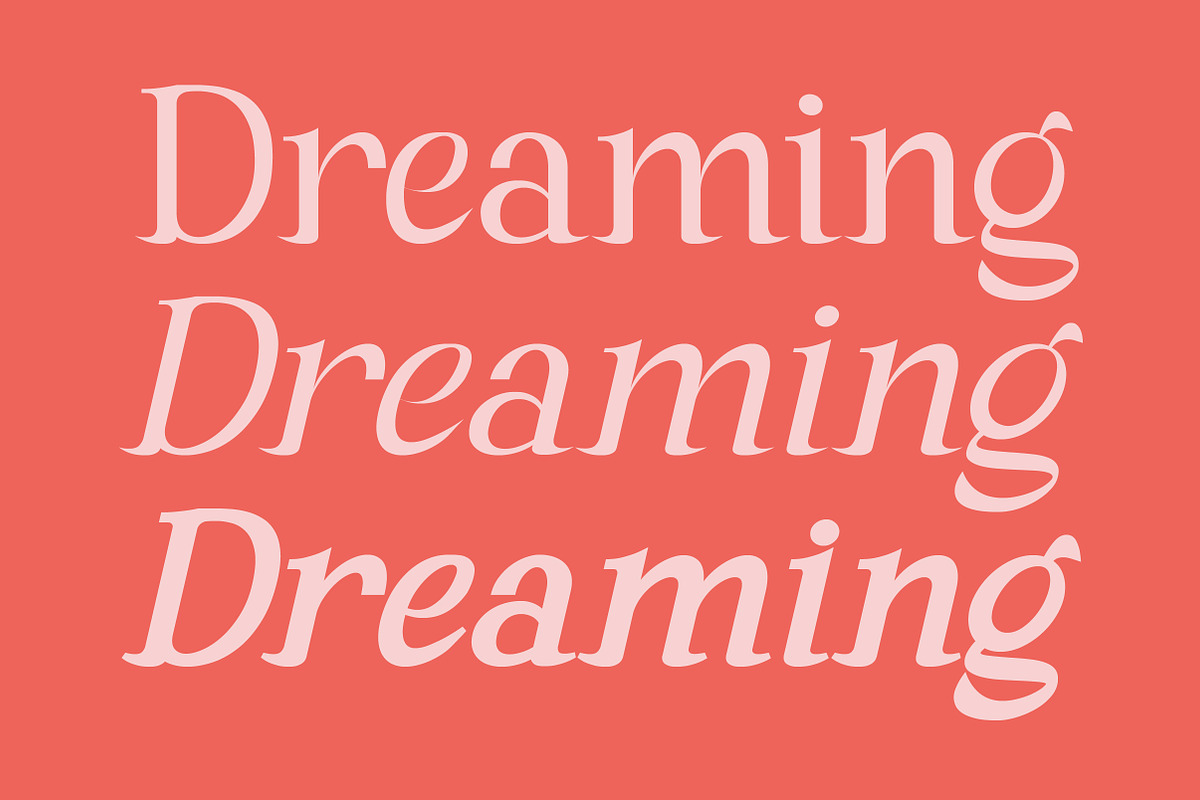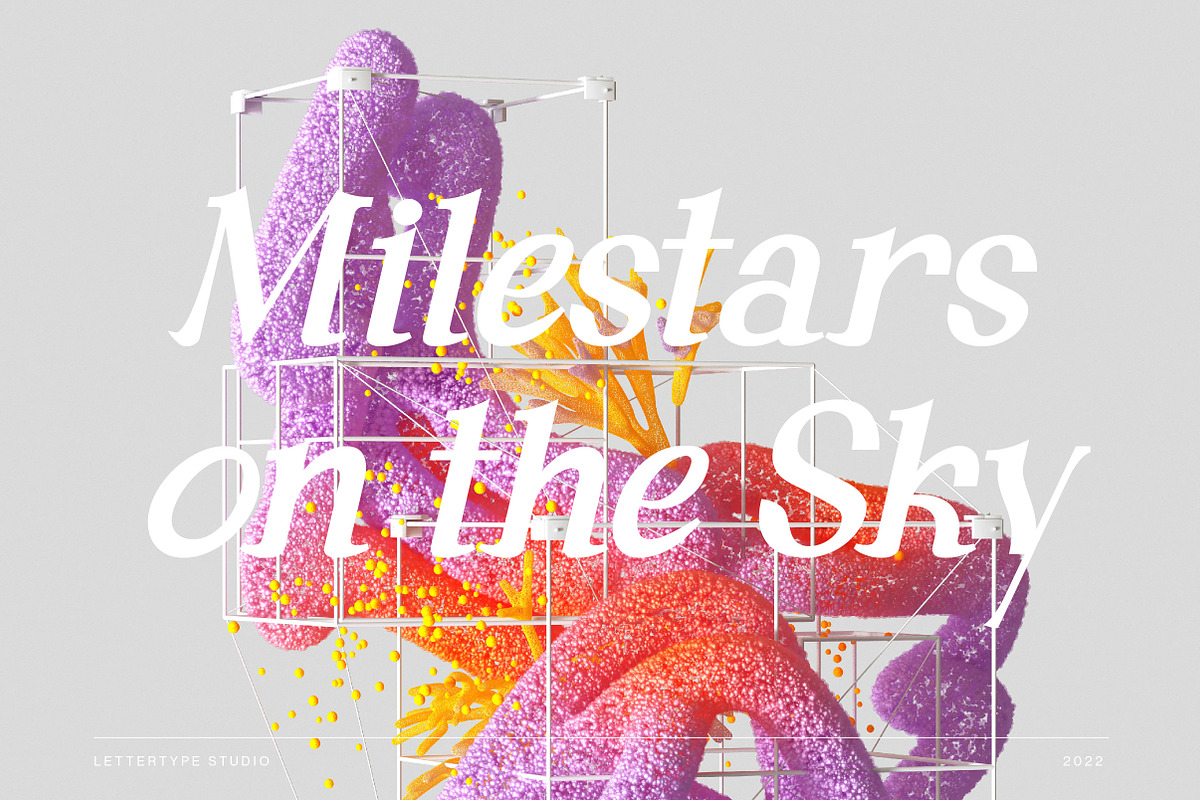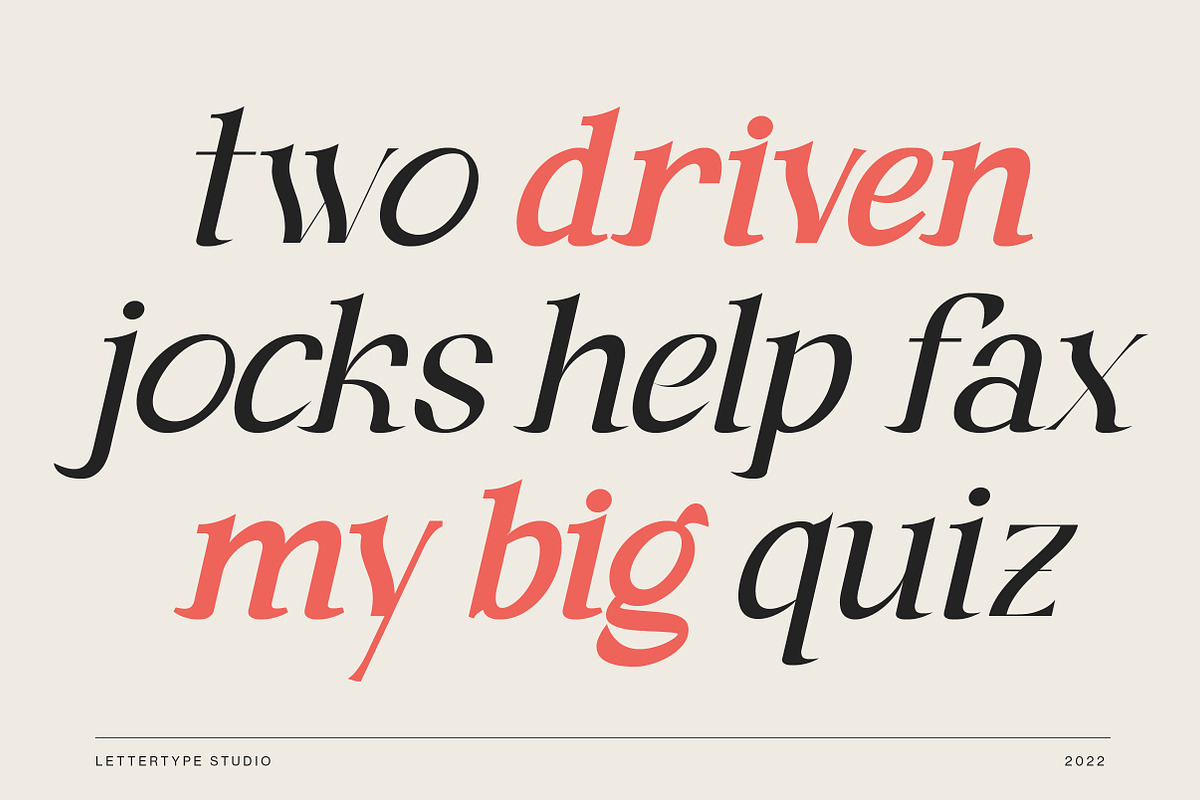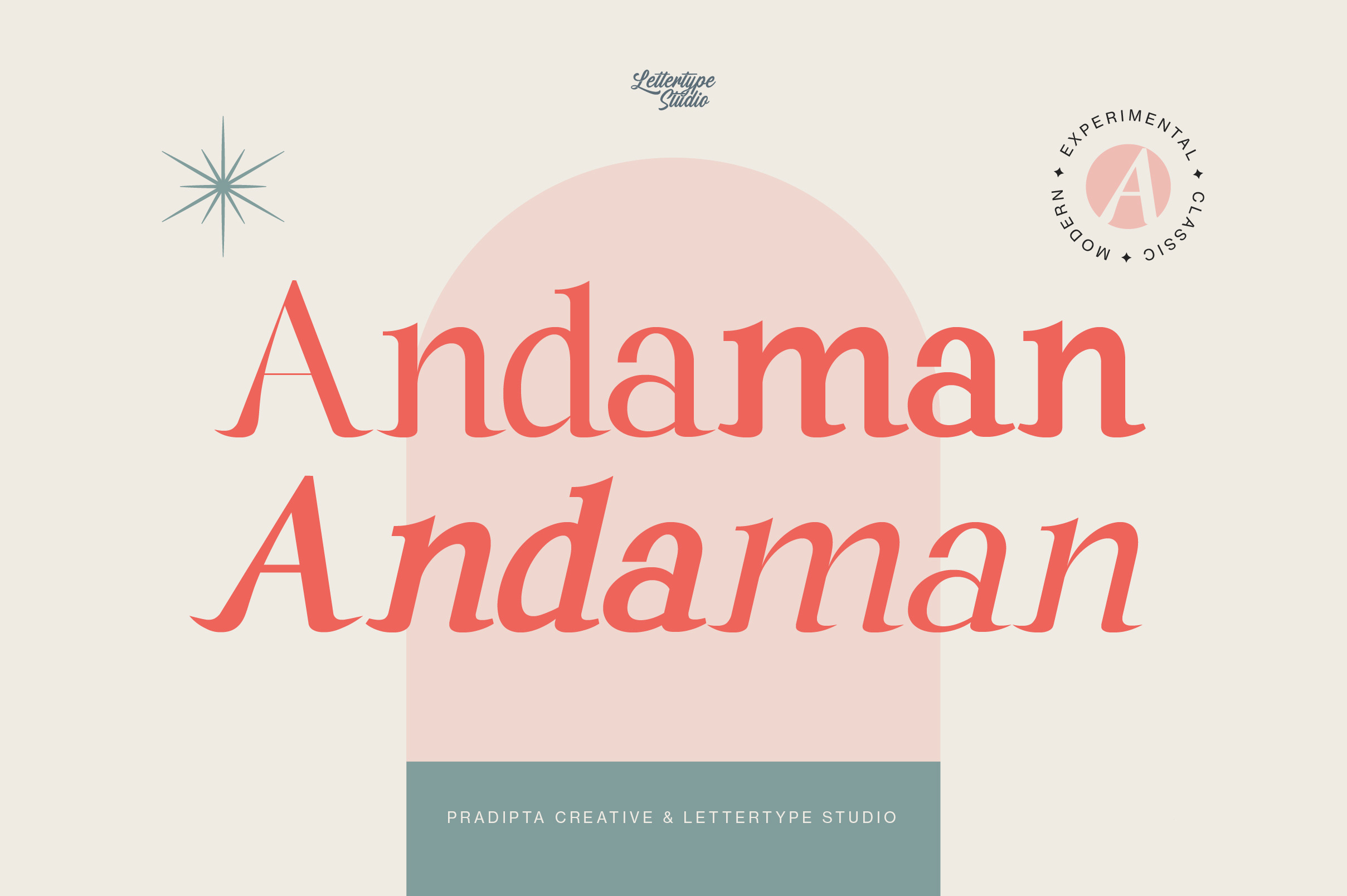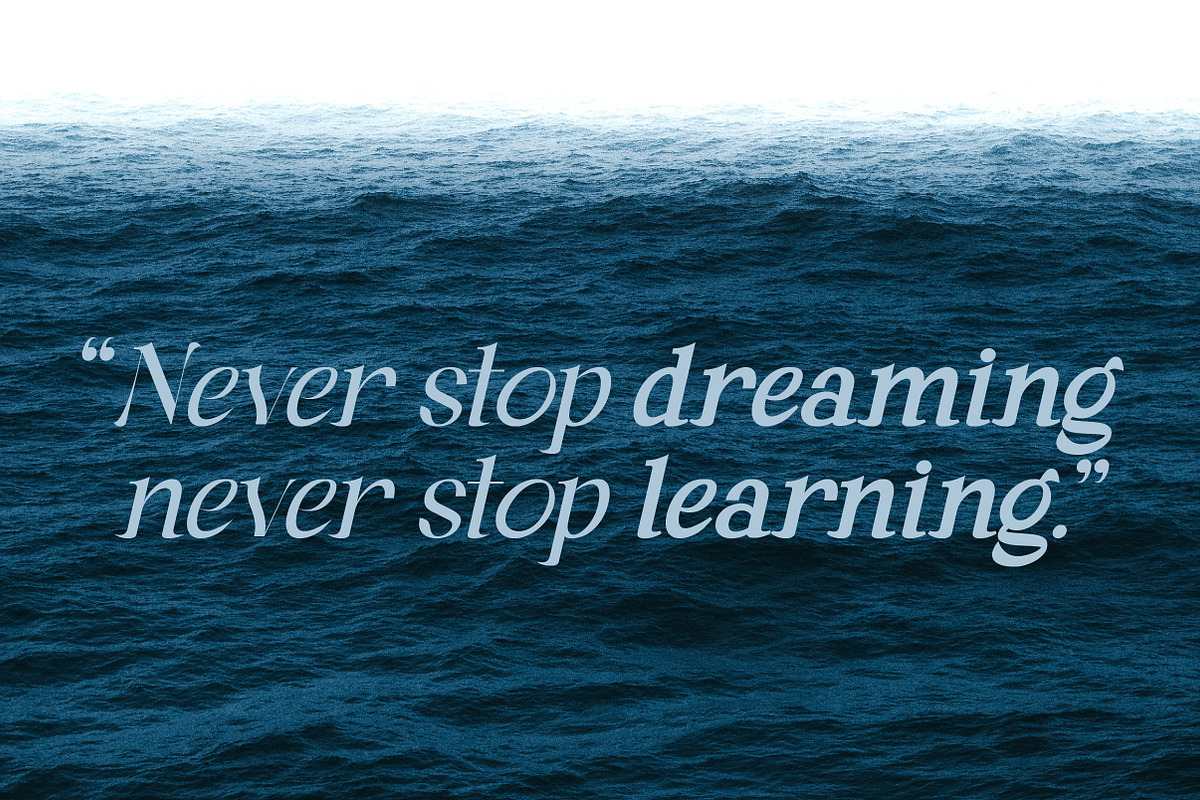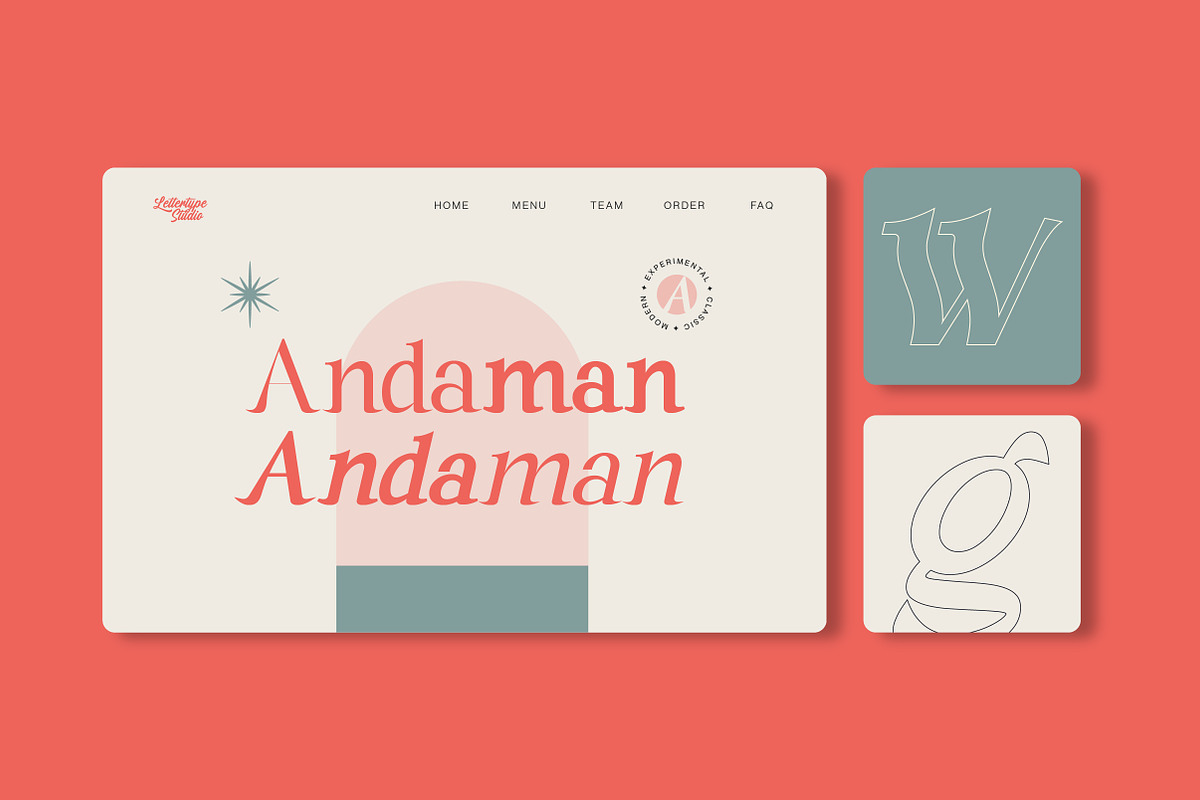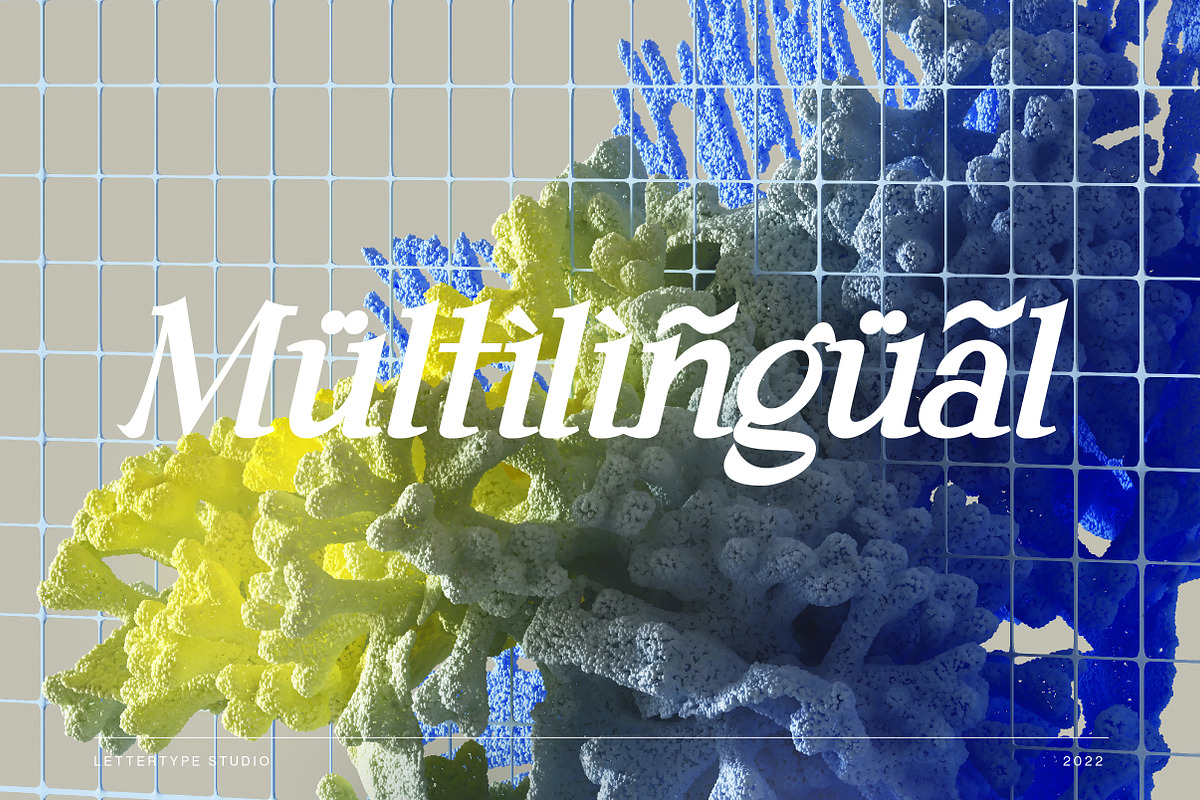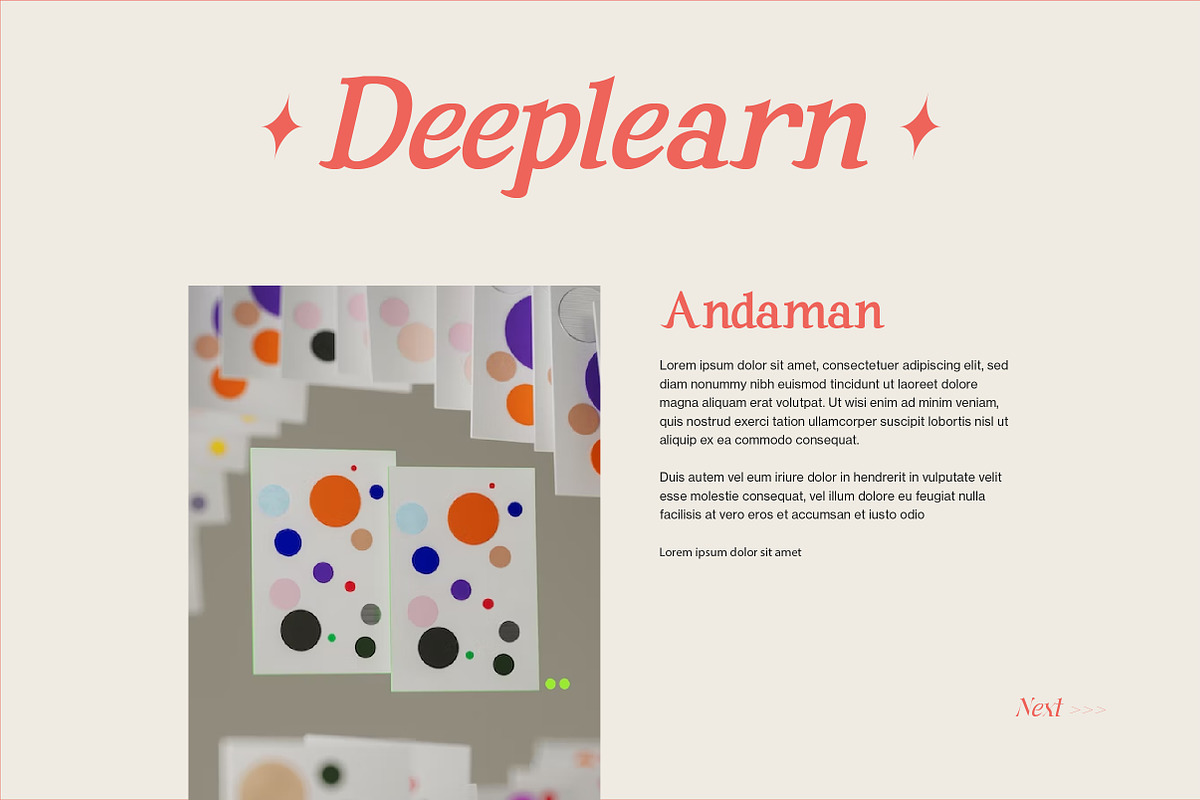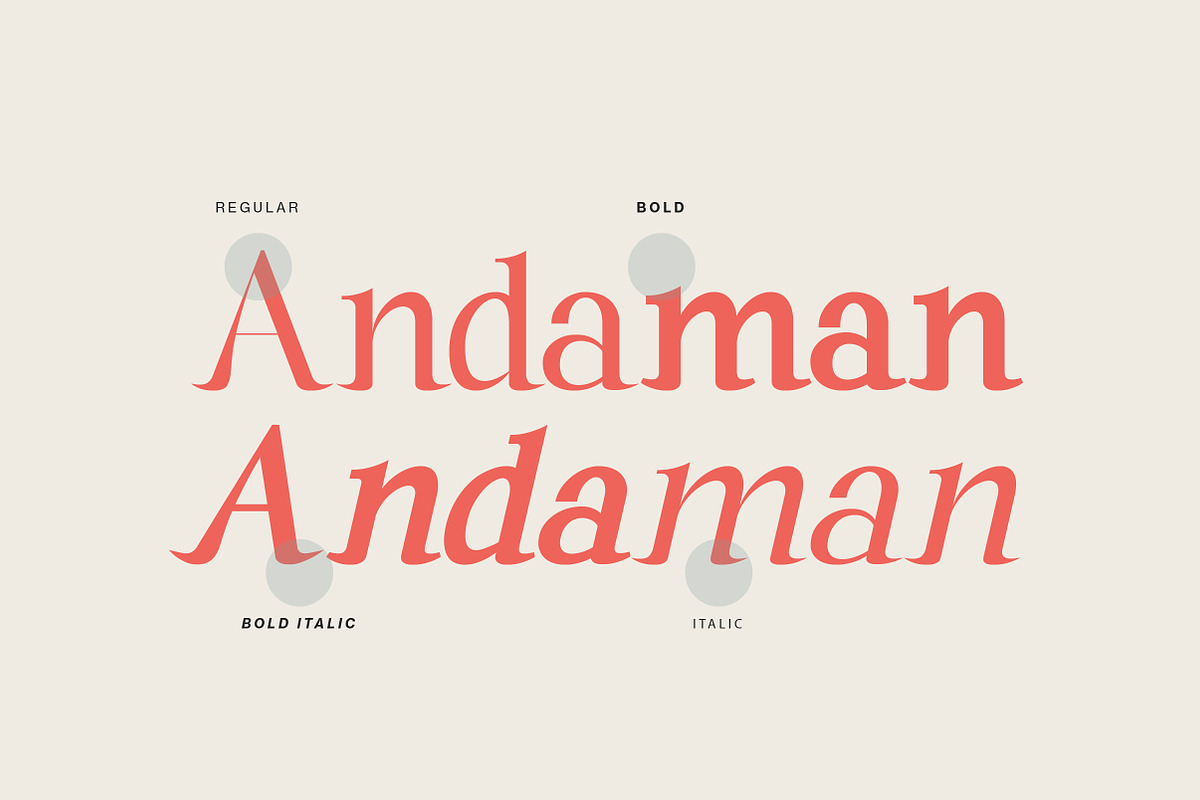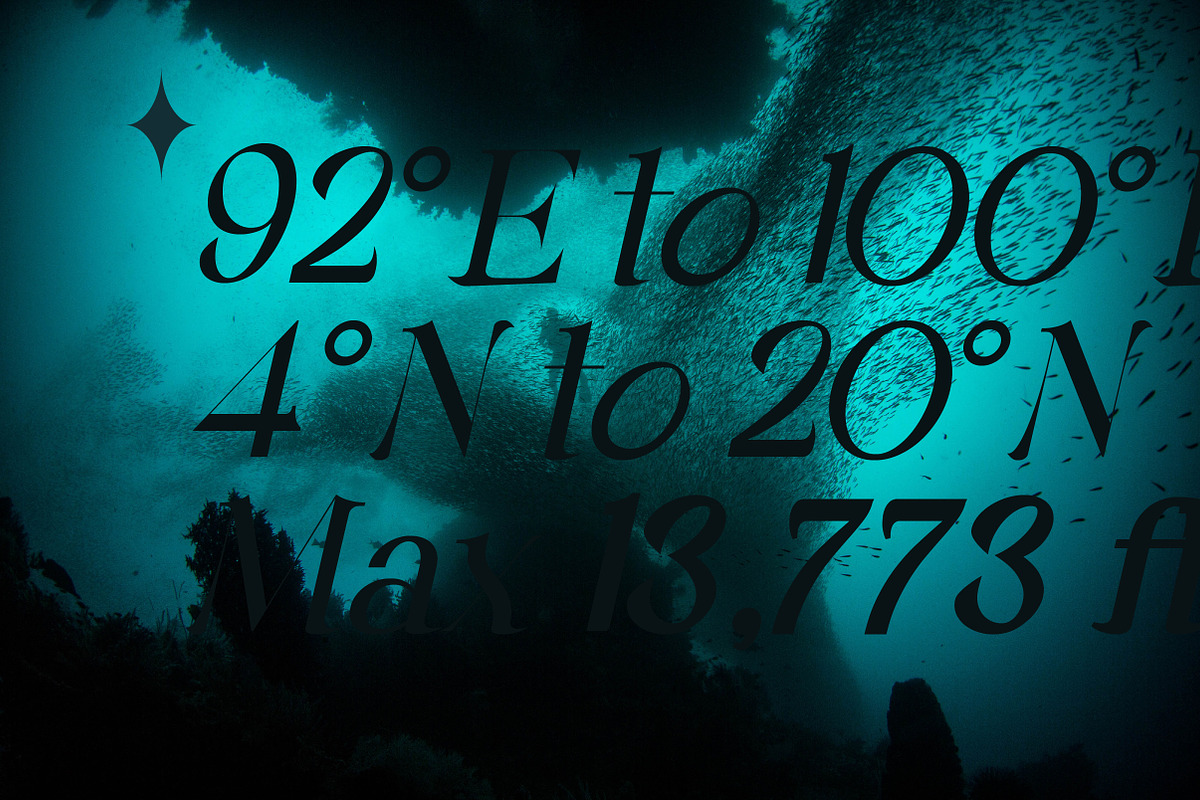
Andaman an Experimental Serif Font
We are introducing "Andaman" an experimental and modern serif font.
This font will be perfect for your logo design, branding, clothing, signage, posters, wedding invitations, cosmetics or fashion and so much more!
Andaman will help your project or brand have a nostalgic and modern look at the same time.
Andaman Comes With the Following:
- Lowercase, Uppercase, and Ligatures
- Accented Characters
- Multiple Languages Supported